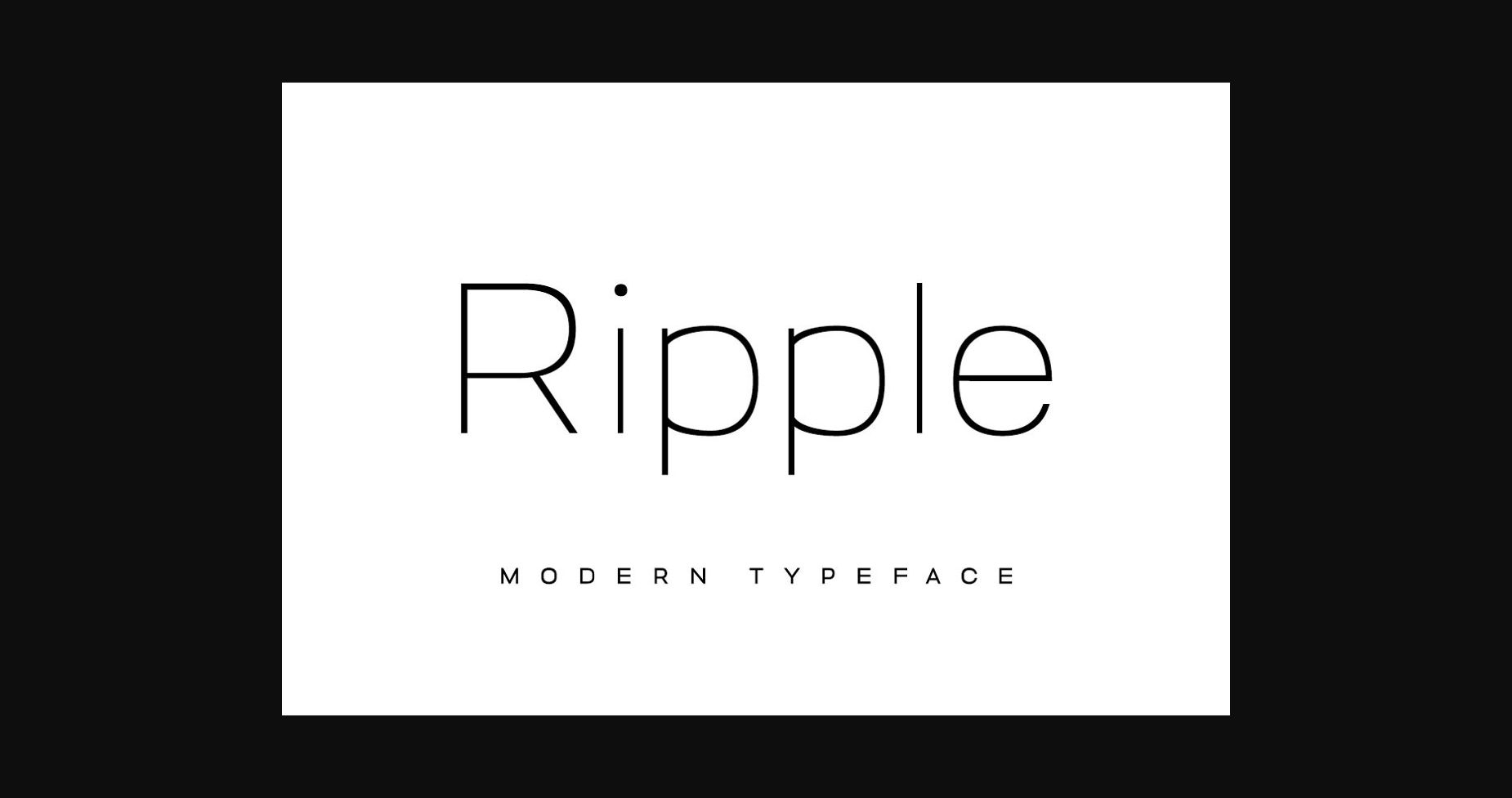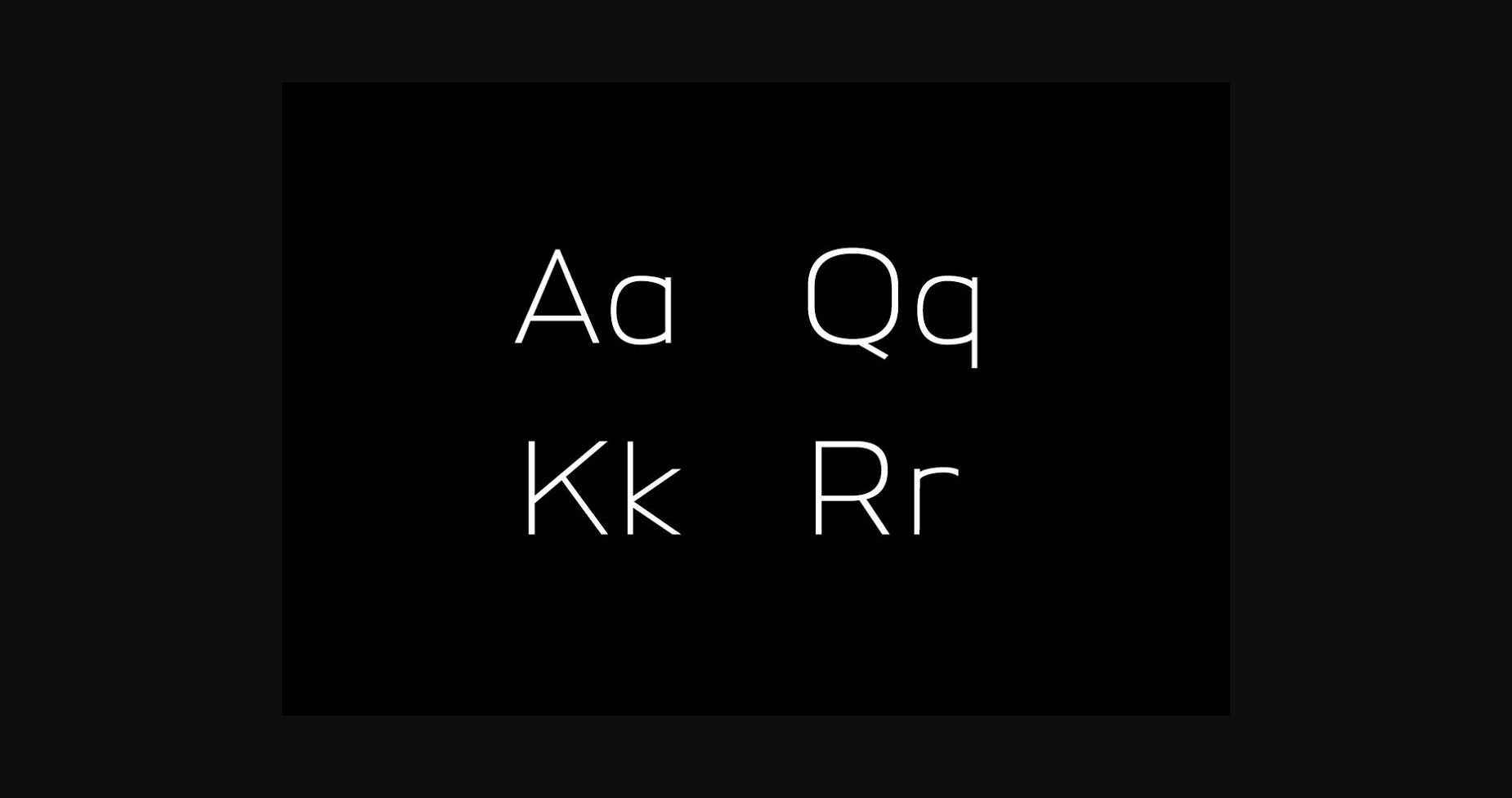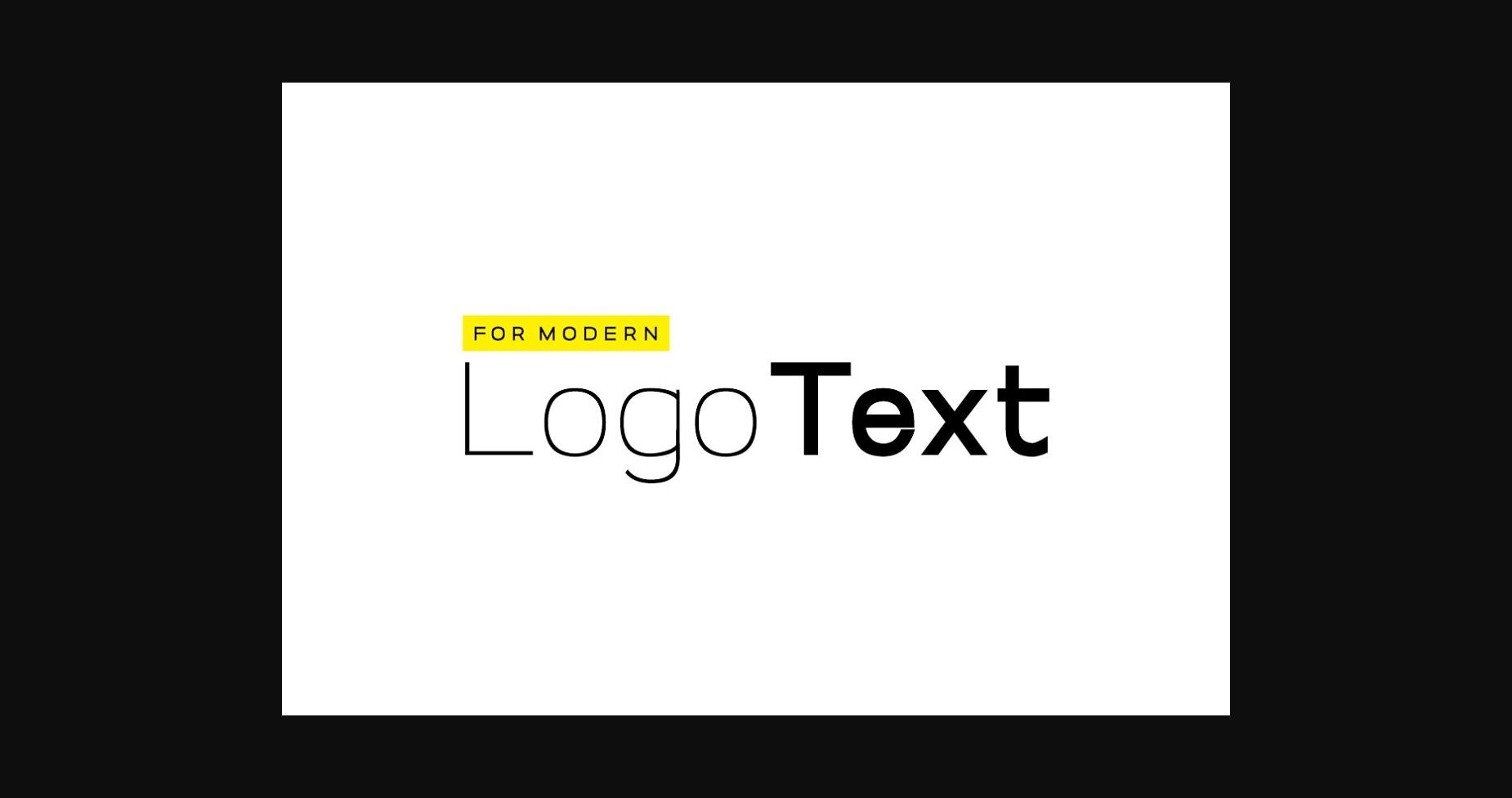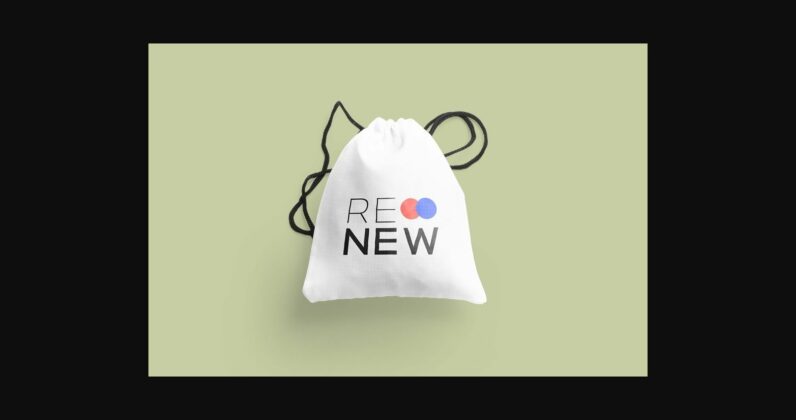
About Ripple Font
Ripple is a minimalistic and cool sans serif font. Versatile and fun, this typeface is suitable for almost any creative project! Use it for marketing materials, apparel designs, banners, social media posts, and so much more!